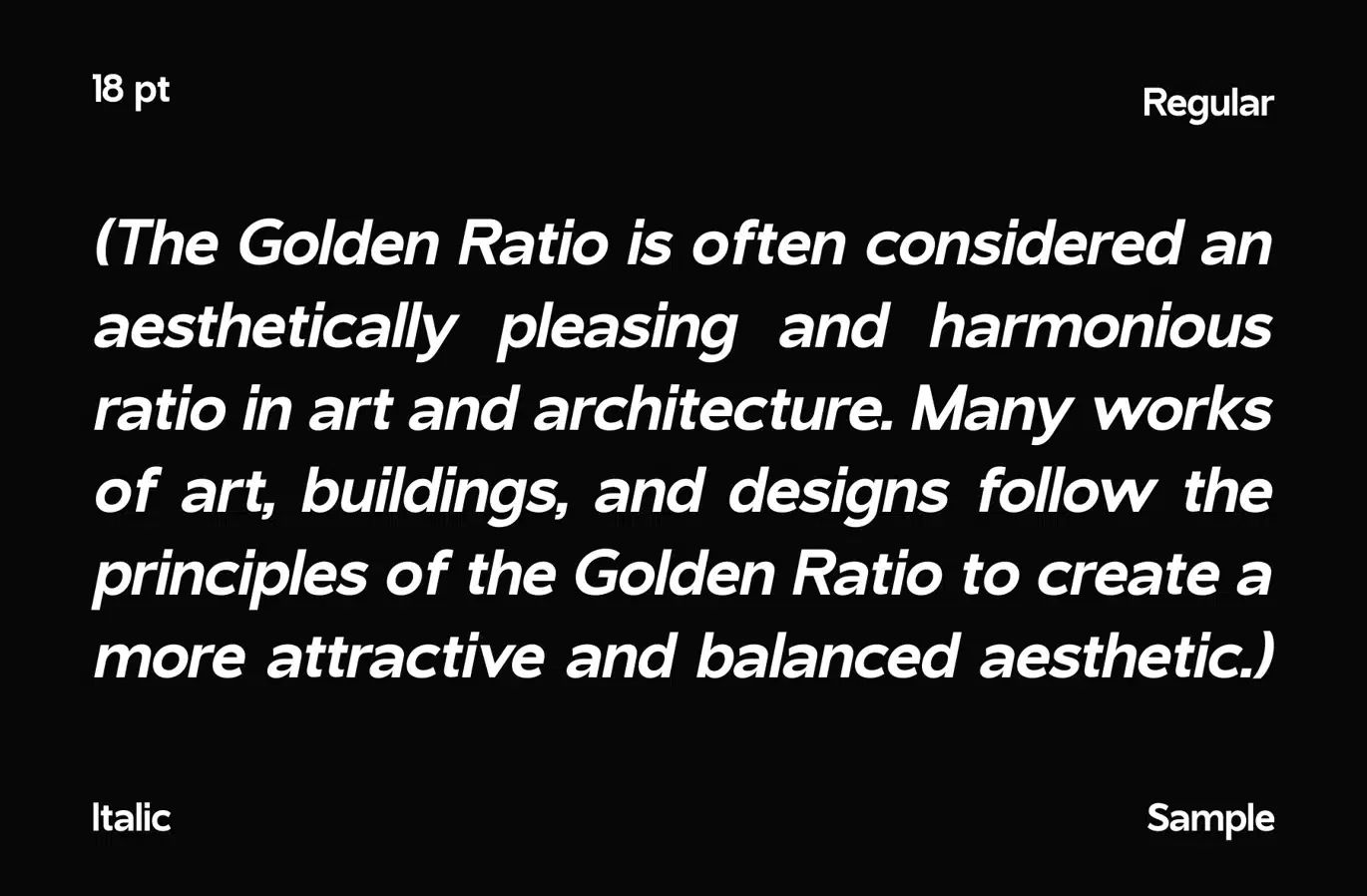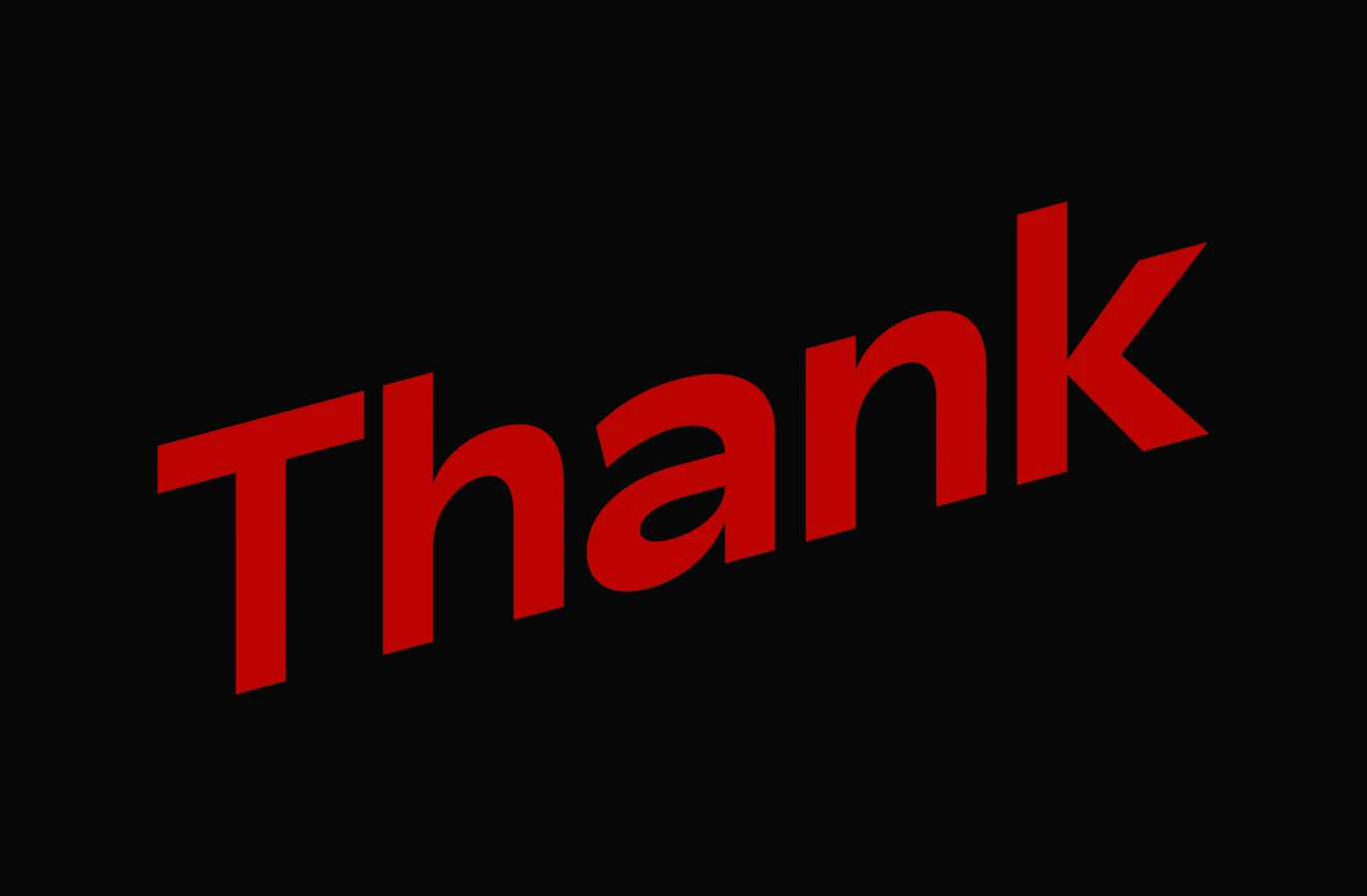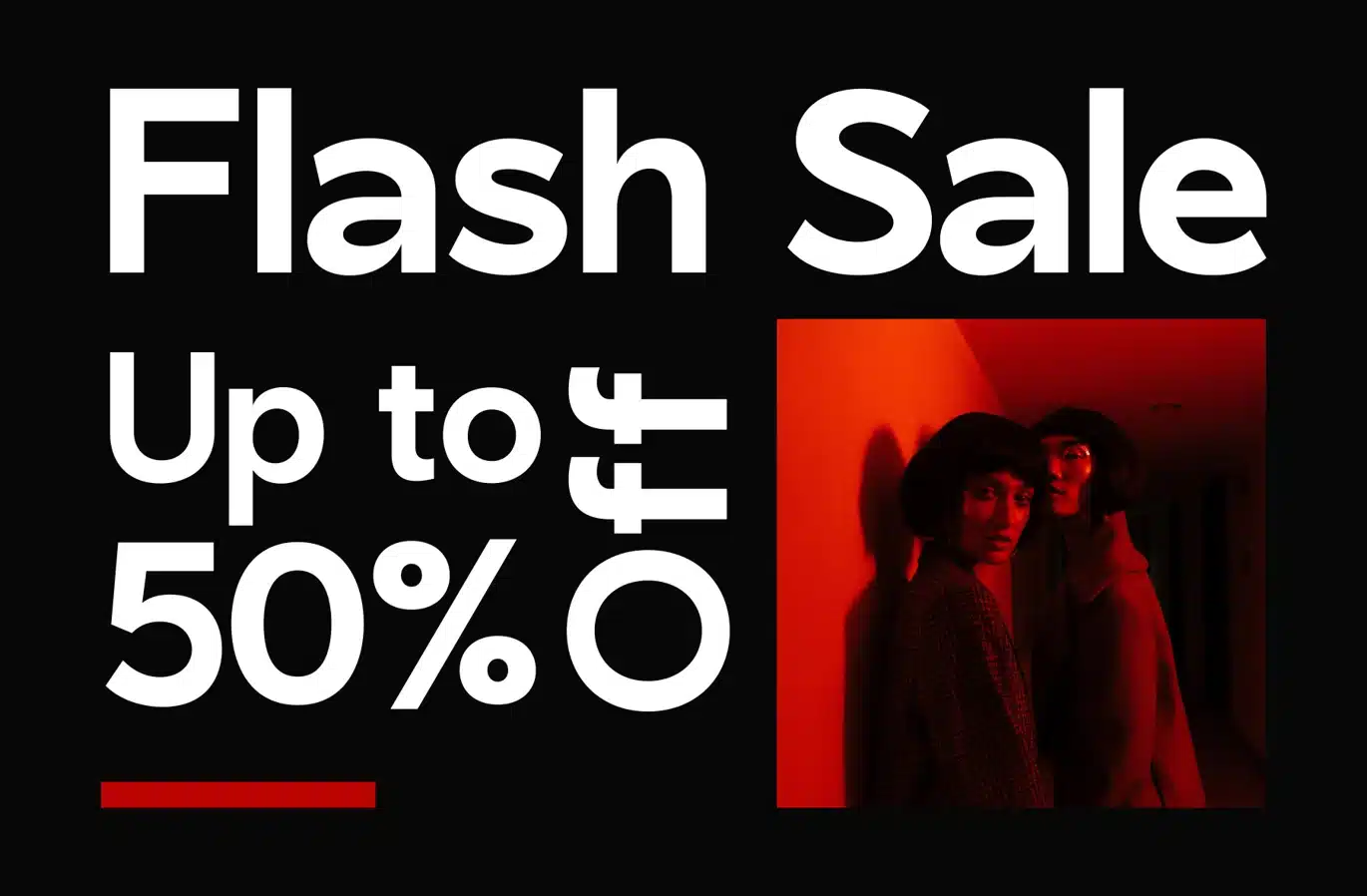
Vintura – A Modern Sans Serif Font
Vintura Font
- A Modern Sans Serif Font
Vintura Font
- A Modern Sans Serif Font is a bold and authentic display font. The font is suitable for any branding project like logo, Template Design, Product and many more. outstanding in a wide range of contexts.